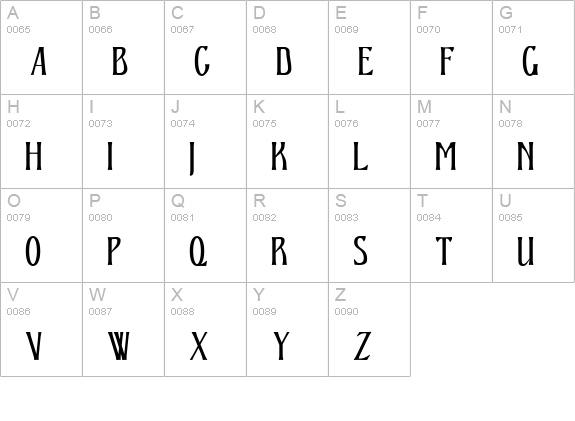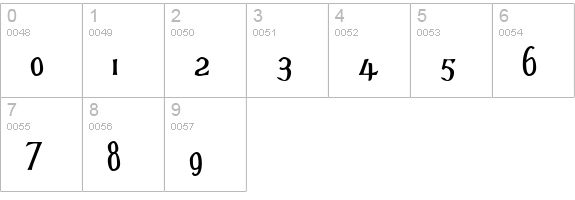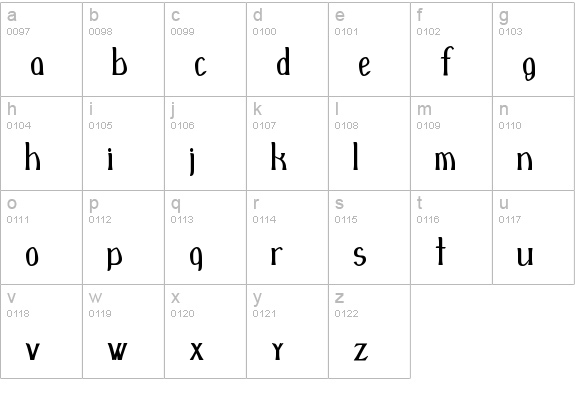
d'Spenser Font Details
d'Spenser is a modern and elegant font that exudes sophistication and style. With its clean lines and sleek curves, this typeface is perfect for adding a touch of class to any design project. The versatile nature of d'Spenser makes it suitable for a wide range of applications, from branding and advertising to invitations and packaging. Best of all, d'Spenser is available for free download at FontsMarket.com. This means that you can easily access this stunning font without breaking the bank. Whether you're a professional designer or a hobbyist looking to enhance your creations, d'Spenser is a fantastic choice that won't cost you a penny. Download it today and elevate your designs with this exceptional typeface.